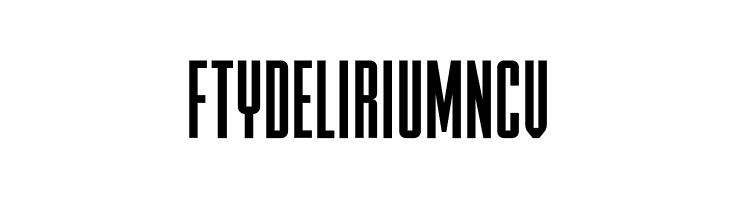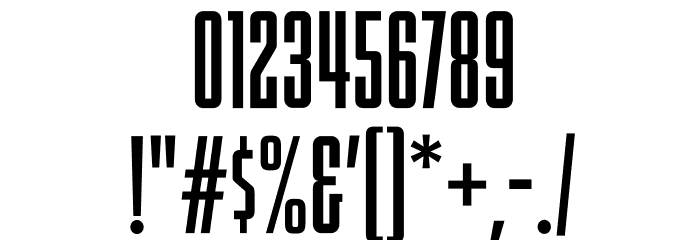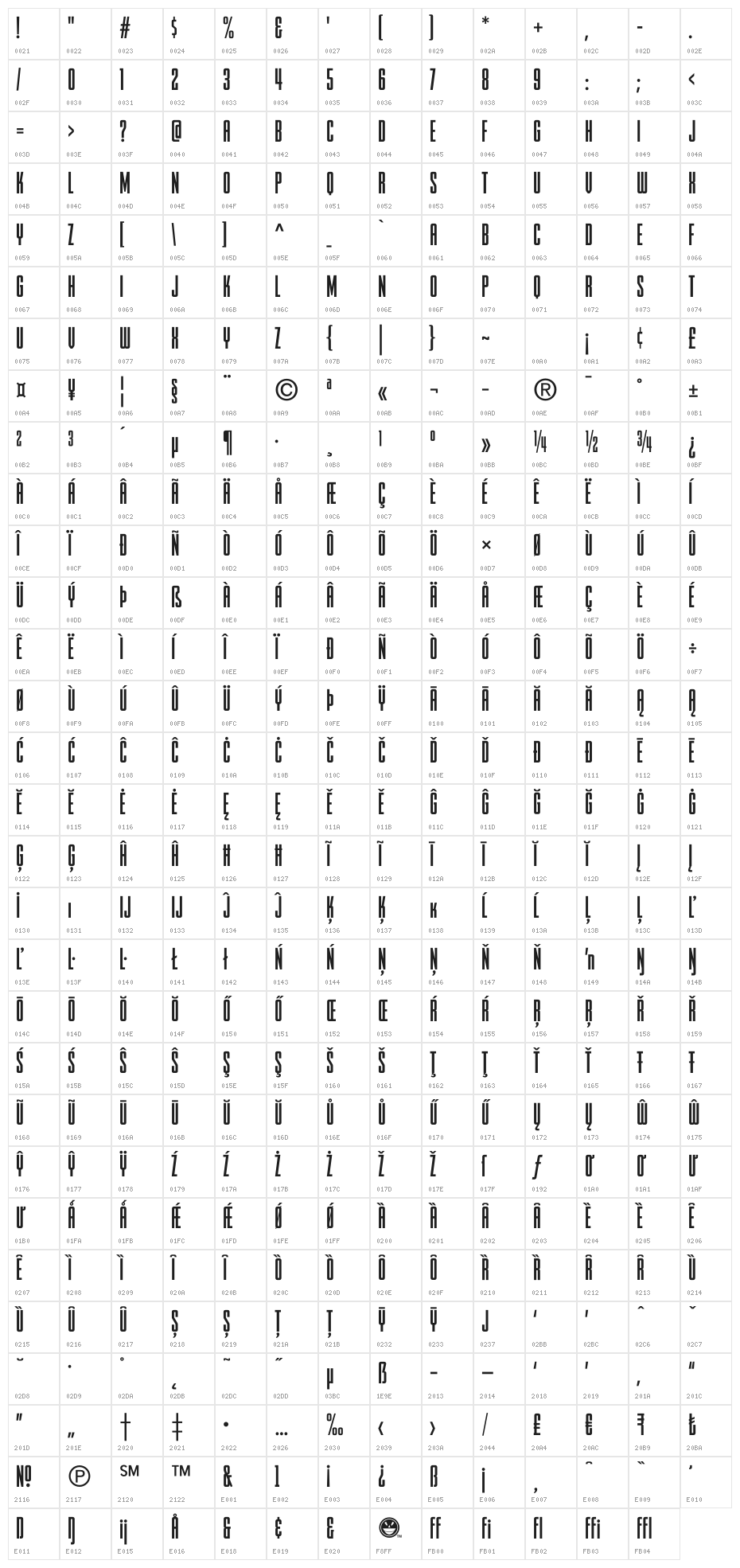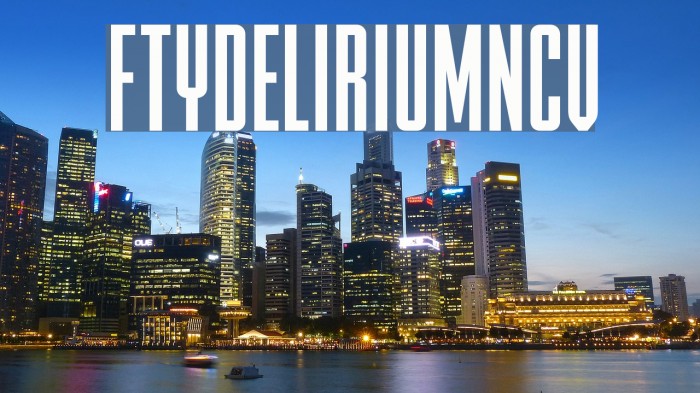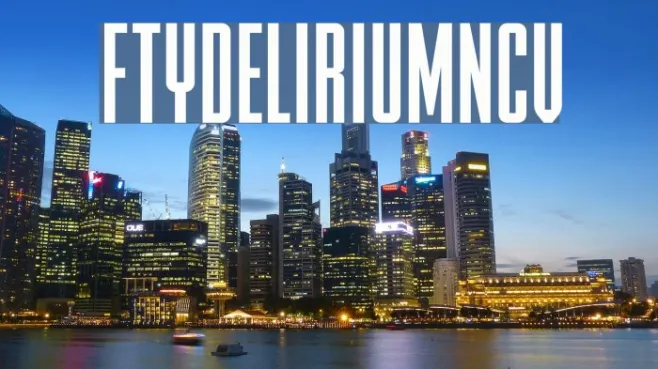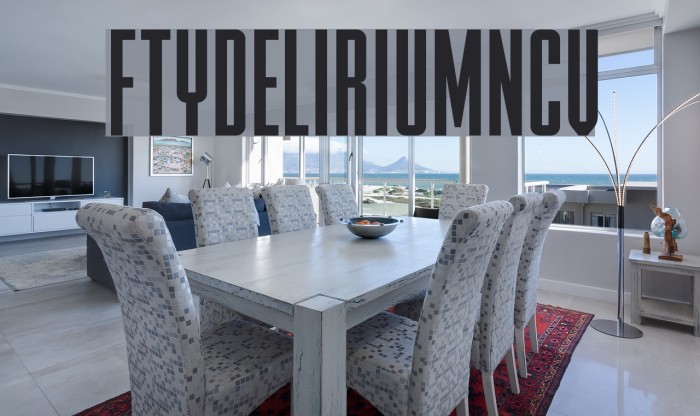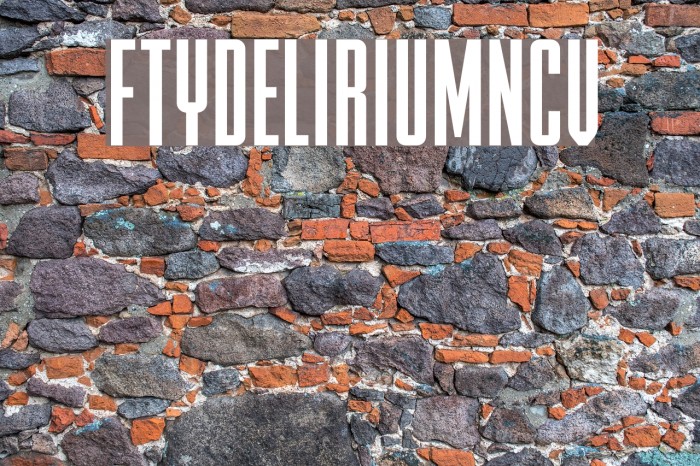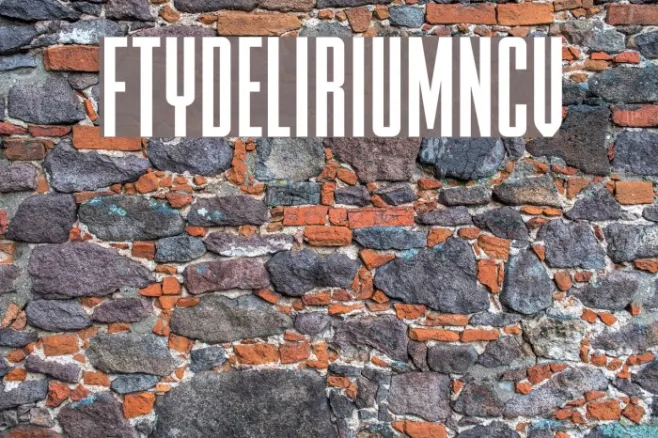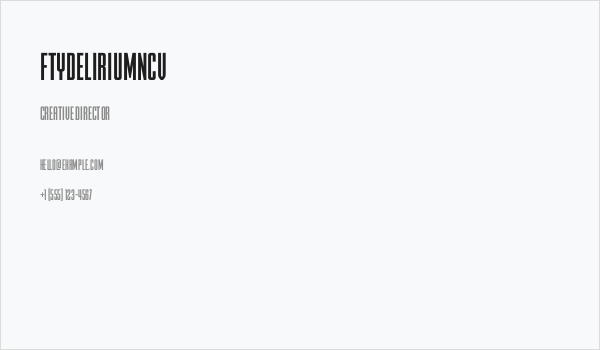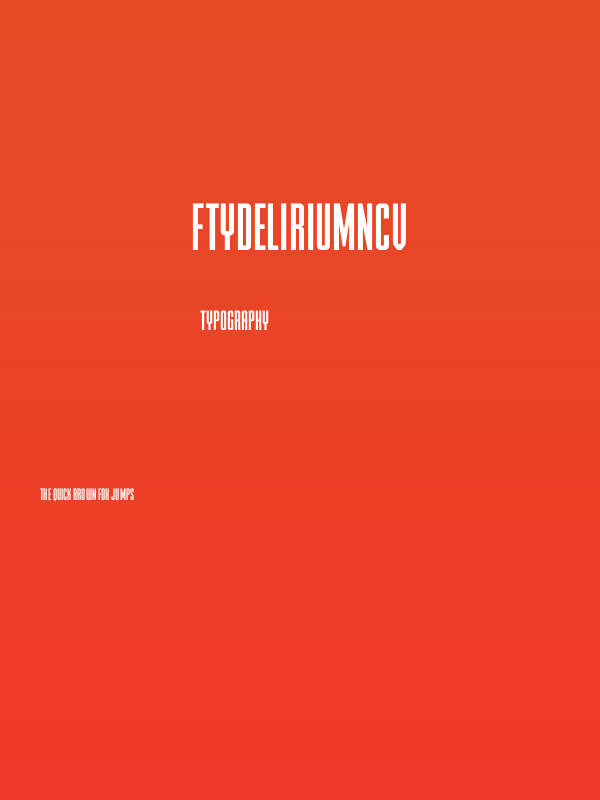
FTYDELIRIUMNCV Font
FTYDELIRIUMNCV Description
This font features a bold and condensed style, characterized by its tall, narrow letterforms and strong vertical emphasis. The uppercase letters are uniform in height, creating a cohesive and impactful appearance. The numbers and special characters maintain the same condensed structure, ensuring consistency across all glyphs. The font's design is modern and assertive, making it suitable for attention-grabbing headlines and titles. Its high contrast between thick and thin strokes adds to its dynamic and striking presence.
| Proposed Projects | Ideal for posters, headlines, branding, and any design requiring a strong visual impact. |